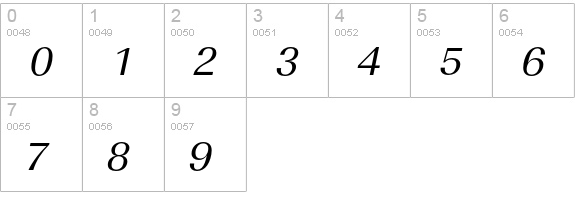
URWImperialTOTExtWid Oblique Font Details
URWImperialTOTExtWid Oblique is a distinctive, italic variant in the URWImperialTOTExtWid typeface family \xE2\x80\x94 well suited to design and typography projects.
URWImperialTOTExtWid Oblique font is a modern and stylish typeface that exudes elegance and sophistication. Its sleek and slanted design adds a touch of flair to any project, making it perfect for titles, headers, and other display text. The unique letterforms and clean lines of URWImperialTOTExtWid Oblique make it stand out from the crowd, giving your designs a professional and polished look. Best of all, URWImperialTOTExtWid Oblique font is available for free download at FontsMarket.com. This means you can easily access this high-quality typeface without any cost, making it a valuable addition to your font collection. Whether you're working on branding, advertising, or any other design project, URWImperialTOTExtWid Oblique font is sure to elevate your work with its modern and eye-catching style. Download it today and see the difference it can make in your designs!